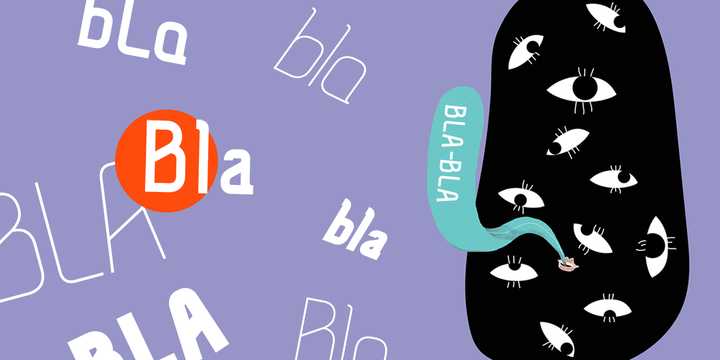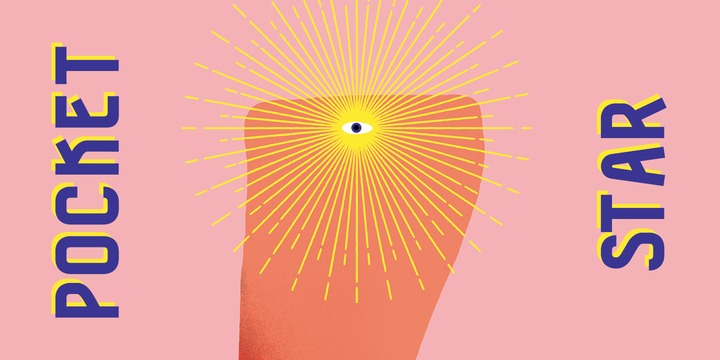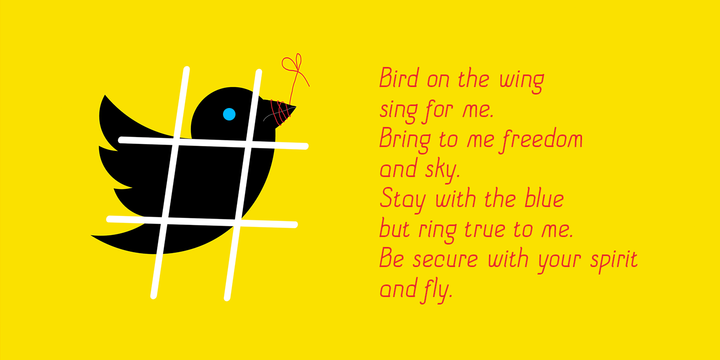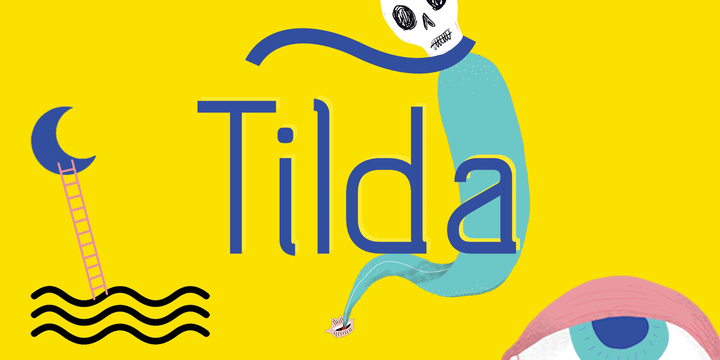
Tilda is a sans serif typeface with big potential. Its gonna be your daily font, because it perfectly fits to different tasks. Tilda is good as long text but also cool as eye-catch title. This font can be like human ages: childhood, adolescence, youth, adulthood and maturity: stylish THIN, fancy LIGHT, great REGULAR, golden BOLD, brilliant HEAVY And beautiful Isabella Bersellini created illustrations, say her hello! http://www.